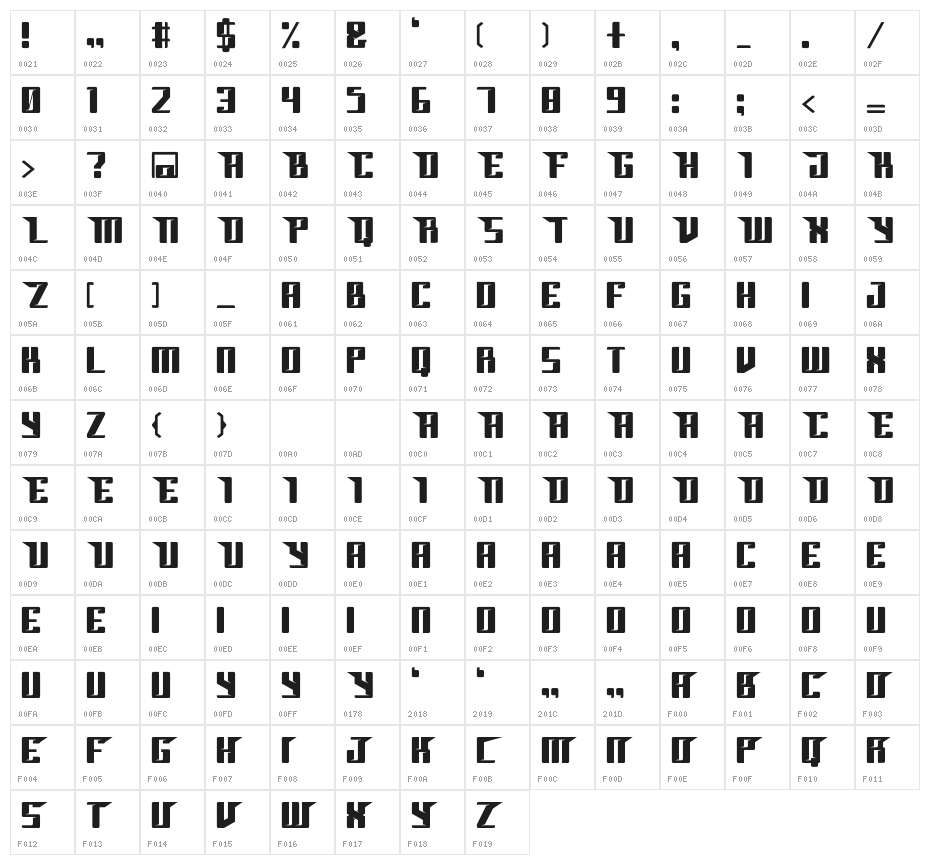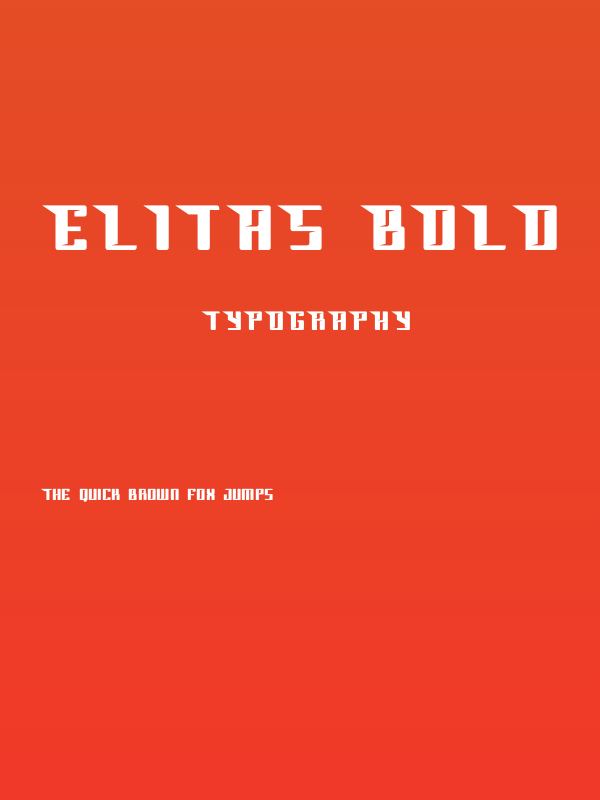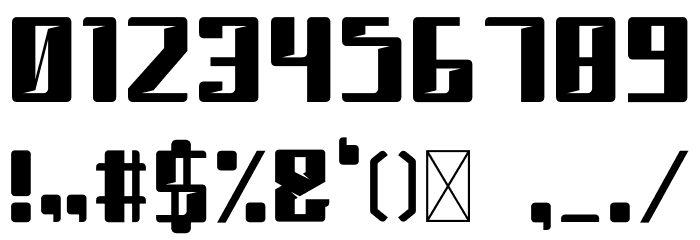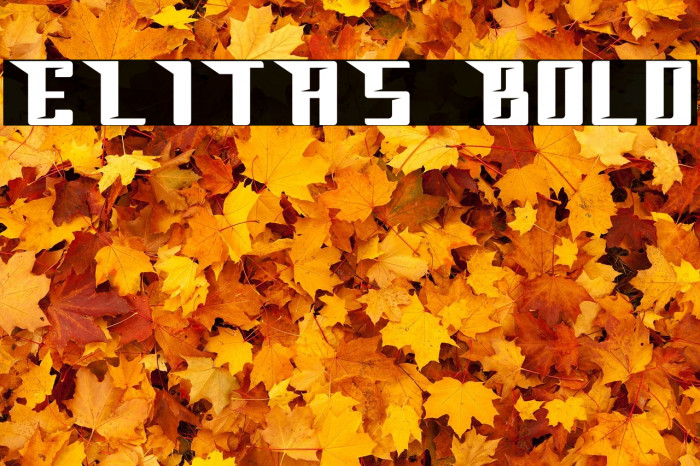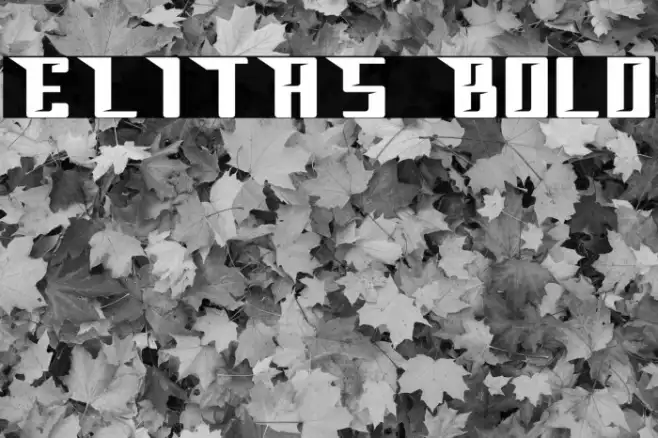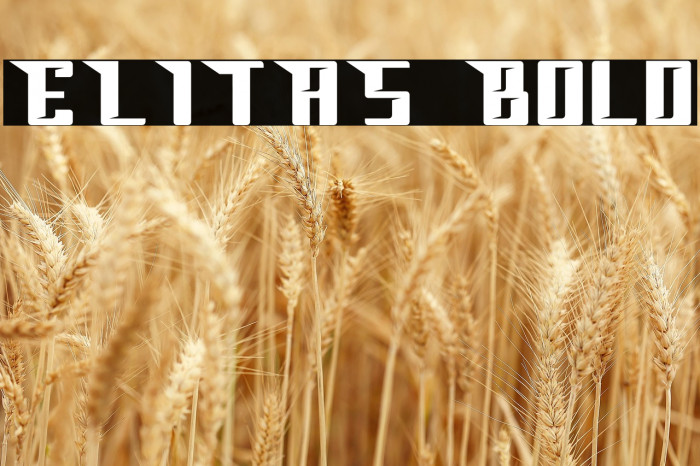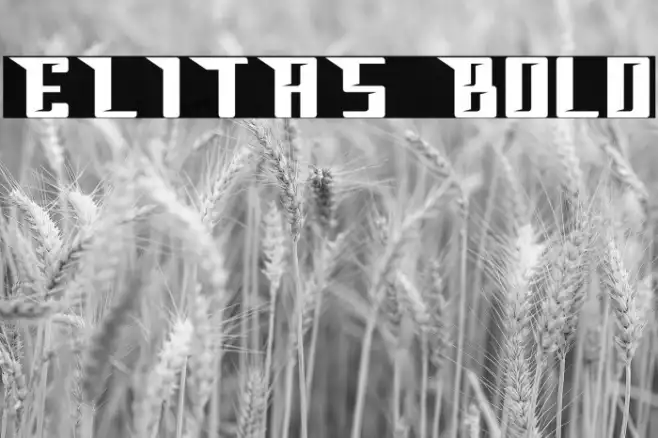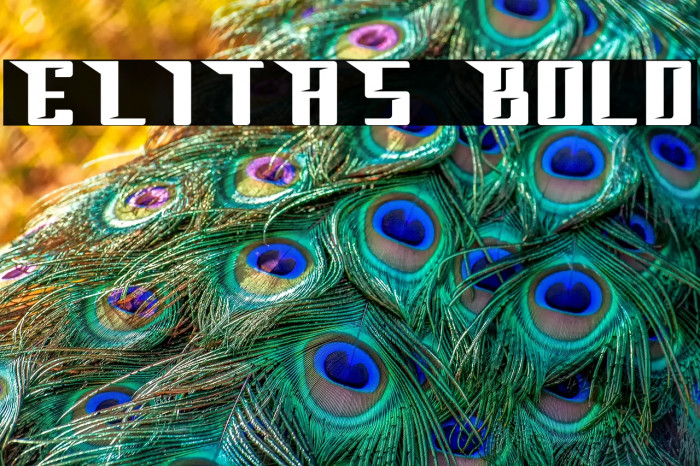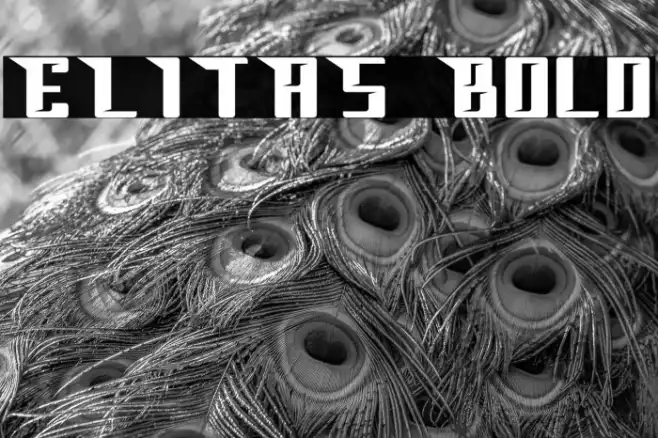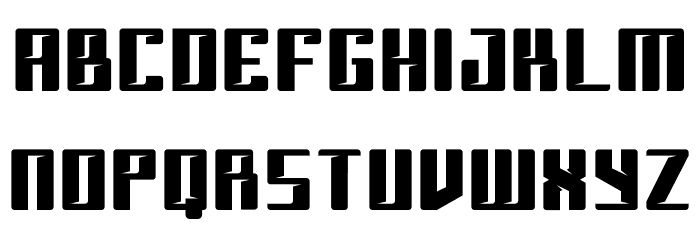
ELITAS Bold Font
ELITAS Bold Description
This font features a bold and striking design with angular, geometric shapes that give it a futuristic and dynamic appearance. The characters are constructed with sharp edges and a consistent weight throughout, creating a sense of strength and stability. The uppercase and lowercase letters maintain a uniform height, enhancing the font's modern aesthetic. The numerals and special characters are designed to match the boldness of the alphabet, ensuring a cohesive look across all text. This font's unique style makes it stand out, ideal for projects that require a strong visual impact.
| Proposed Projects | Ideal for branding, posters, video game titles, and any project needing a modern, impactful look. |